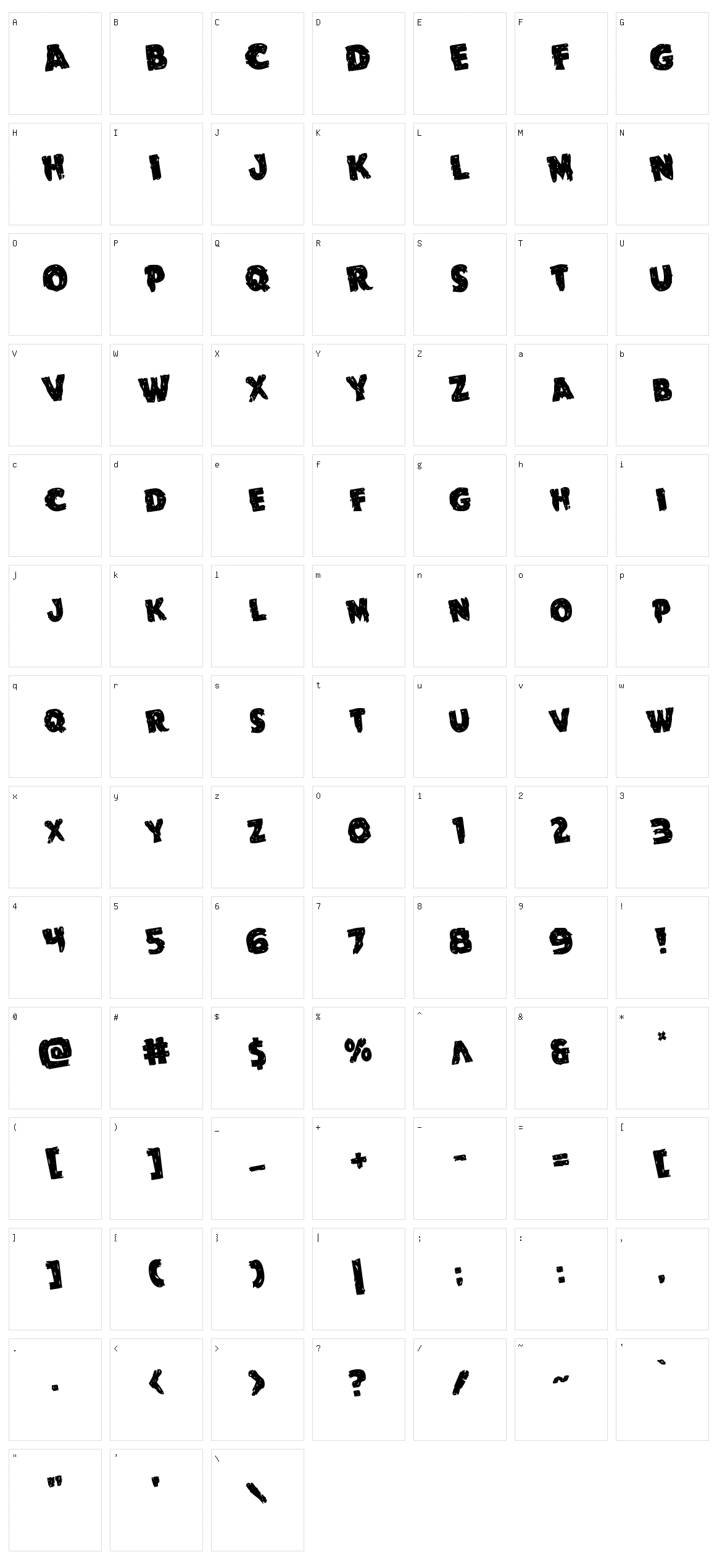
This font comes with the following 18 versions: Regular, Italic, Leftalic, Rotalic, Condensed, Condensed Italic, Expanded, Expanded Italic, 3D, 3D Italic, Riddled, Riddled Italic, Rotated, Rotated 2, Staggered, Staggered Italic, Staggered Rotalic and Leaning.